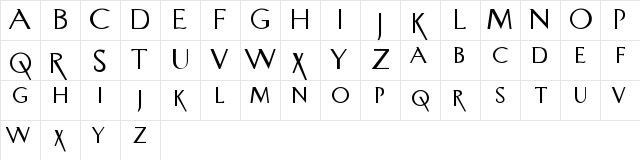
Road to Perdition Regular
Design Context for Road to Perdition Typeface
Road to Perdition is a composed and adaptable typeface that performs quietly and consistently across a wide range of design contexts.